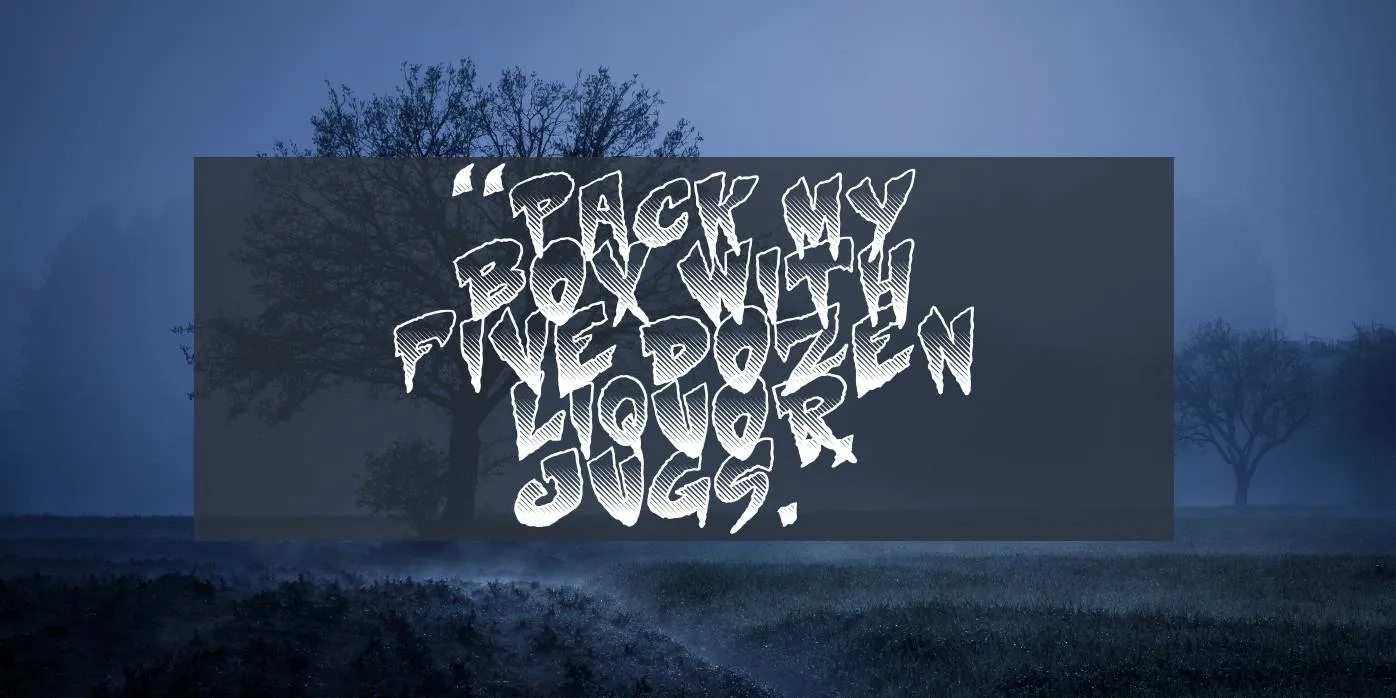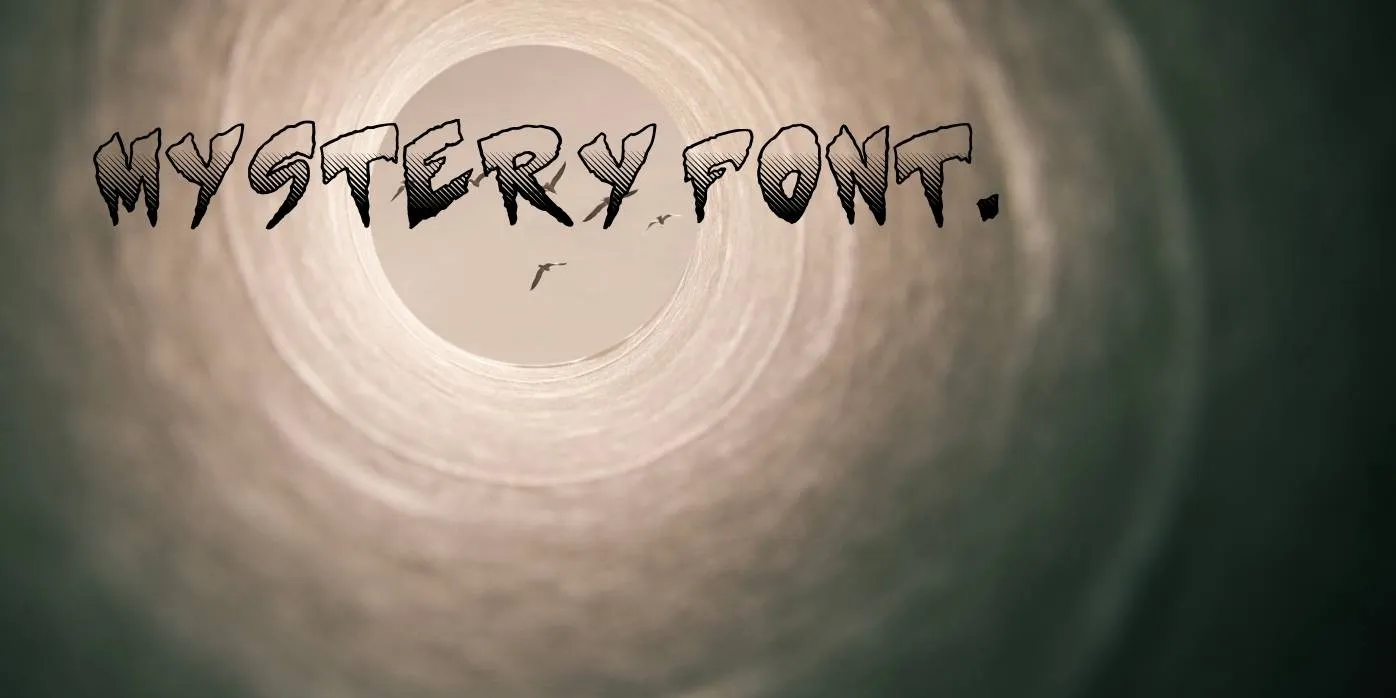
Mystery Font
Mystery Font was designed by a very famous Imagex in 2013. Mystery imagex is a designer and artist and he also designs and draws his own typeface, including Mystery Font. Only the mystery knows who created this amazing font. This classy font comes in two styles and each version contains regular and white typefaces.
This awesome Font is one of the most amazing fonts on Google fonts. It has become popular because of the design and it is free to download. It looks like a classy font, which is best for posters, websites, or any other graphics. Diploma Font is the most similar font to this typeface.